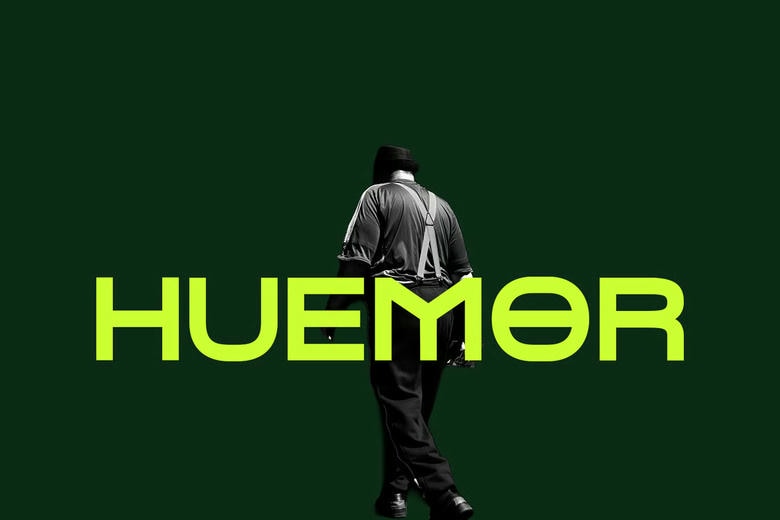
Huemor Font
Huemor is a daring display typeface that is intended to take over. It is created on purpose to be used in posters, covers, and flyers, which is why it has a playful character, yet it has significant visual appeal as well, which makes any word memorable and expressive. Its unique letterforms add dynamism and character to headlines, so that your designs are noticeable at first sight.
Harvested as a one-weight font, Huemor is more about simplicity and personality and less about complexity- ideal in bold typography declarations. Huemor has a distinct voice that fits the present graphic design whether big and loud or a central accent.
Huemor Sans Serif Font